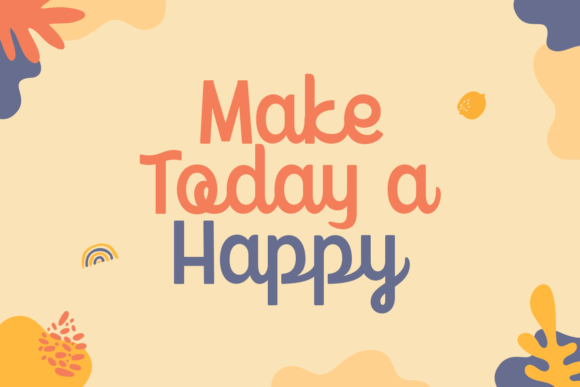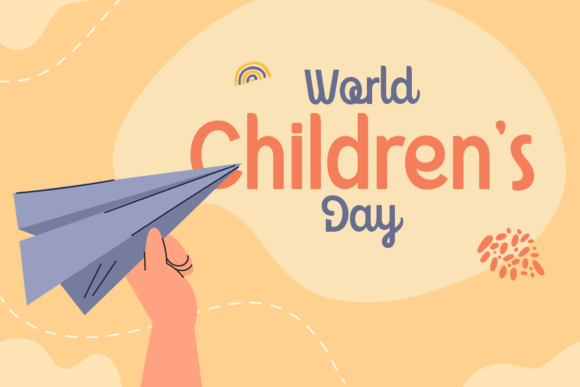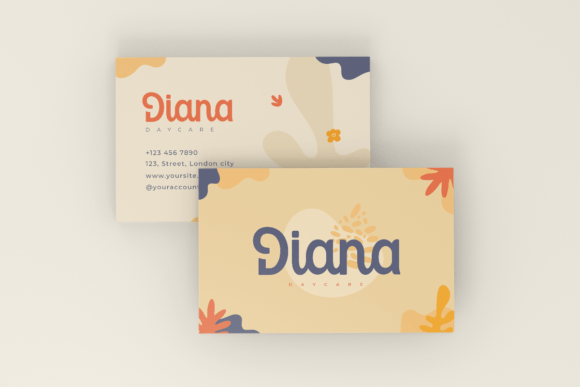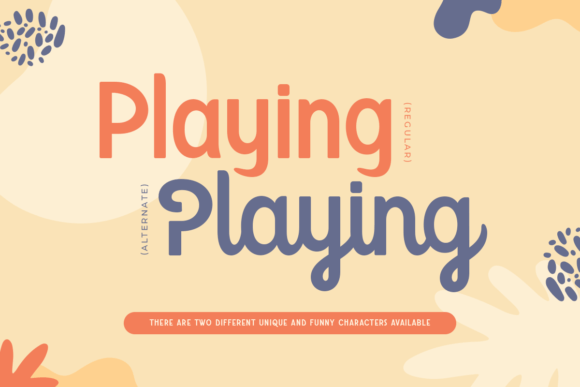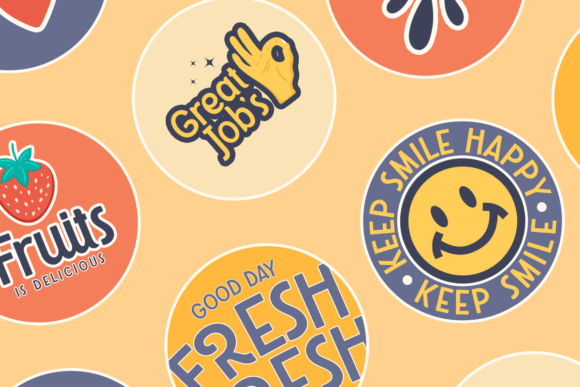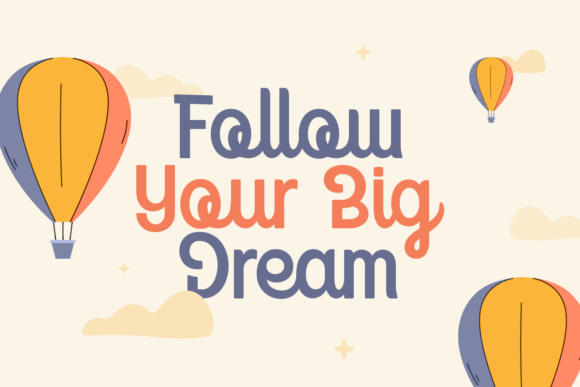
Introduction to Monday Today Font
Monday Today is a fun and playful cute typeface.
It is perfect for logotypes, flyers, greeting cards, packaging, book covers, printed quotes, headings, etc .
Monday Today Font offers exceptional quality and versatility, making it a valuable addition to your design toolkit. Whether you’re creating for personal projects or commercial use, Monday Today Font delivers professional results.